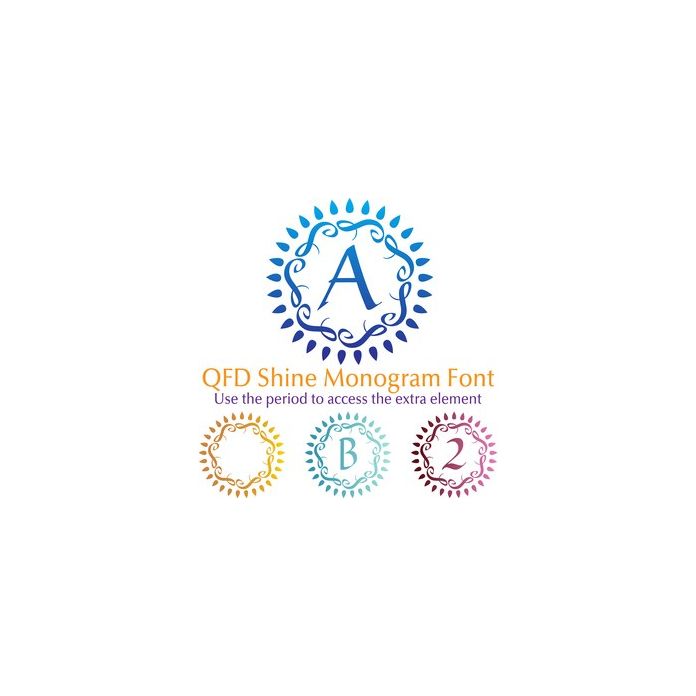
Perfect for gift tags, cards, pillows, invitations, wall art, t-shirts, mugs and anything else you can think of.
Use the period to access the blank element.